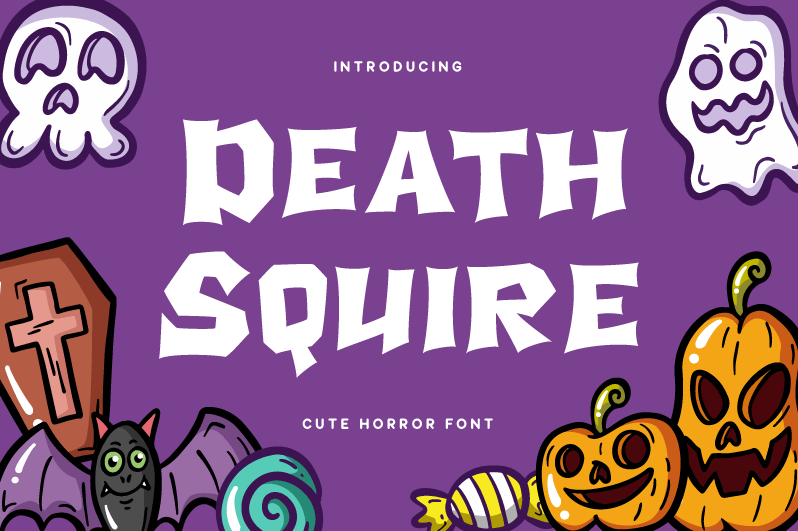
Preview and download Death Squire Font. Created by Akhmad Reza Fauzi in Holiday Halloween styles with Free for personal use license.
Font name: | Death Squire |
Author: | Akhmad Reza Fauzi |
This font is for PERSONAL USE ONLY! Death Squire is cute horror display font. The perfect match for any Halloween designs! --------------------------------------------------------- Any DONATION will be appreciated https://www.paypal.me/akhmadrezafauzi Purchase COMMERCIAL LICENSE: https://grezlinestudio.com/product/death-squire-font/ Visit my store for special price and discount : https://grezlinestudio.com If you have any questions, feel free to contact me : grezline.studio@gmail.com |